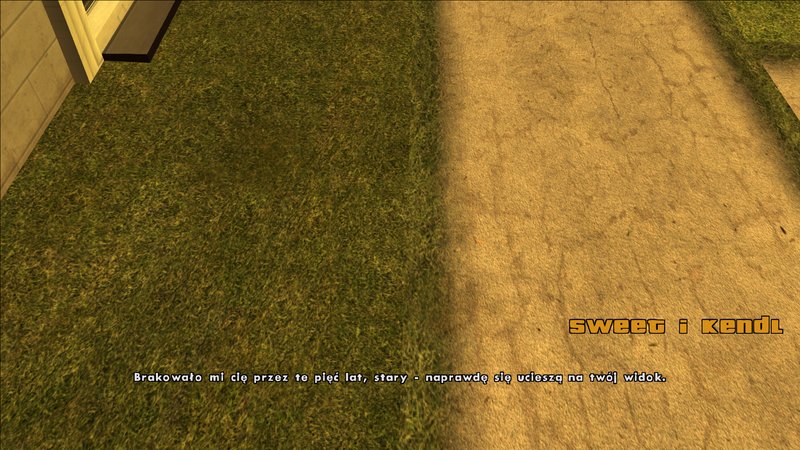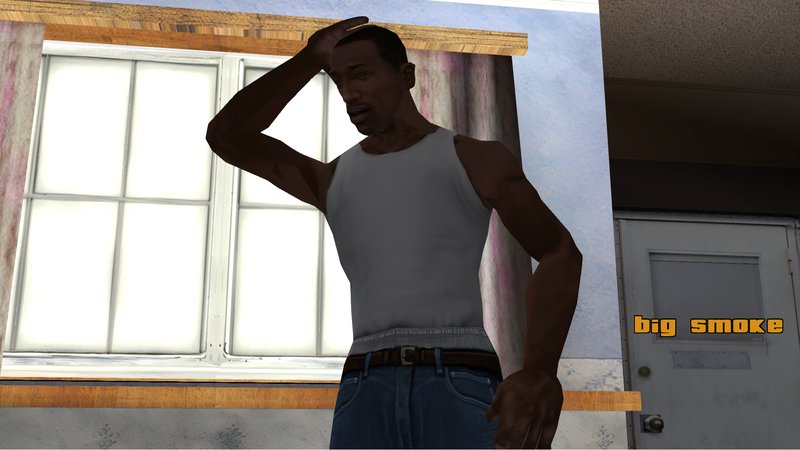
Polish HD Fonts
The font in the HD version is based on the font issued on the one from Cenega. It was proprietary upgraded to a higher resolution and slightly reworked. Have a nice game :)
Small letters fonts.
Liczyłem, że będzie wyglądać jak cenegi tylko w lepszej rozdzielczości, ale niestety w grze wygląda to dość słabo (koślawe literki takie jakby pisał je 12 latek w zeszycie) sorry a szkoda.
Fajny koncept, brakowało mi czegoś takiego tylko te literki w większości są brzydkie i krzywe